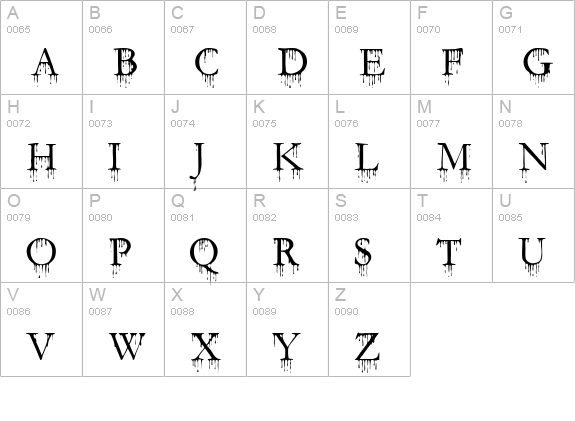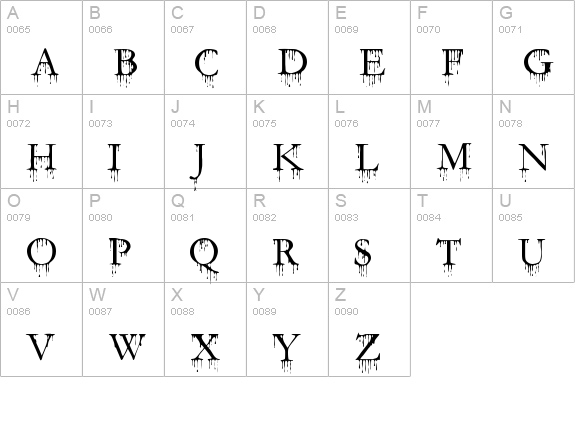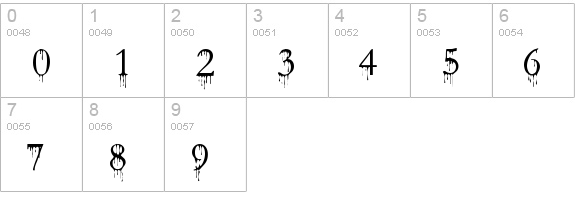
SF Gushing Meadow Font Details
SF Gushing Meadow is a stunning font that exudes elegance and sophistication. Its flowing curves and delicate lines make it perfect for adding a touch of luxury to any project. Whether you're designing a wedding invitation, creating a logo, or crafting a beautiful piece of typography art, SF Gushing Meadow will elevate your work to new heights. This font is not only aesthetically pleasing, but it also offers versatility and functionality. Its legibility ensures that your message is easily conveyed, while its unique style adds a touch of personality to your designs. SF Gushing Meadow is truly a font that stands out from the crowd. And the best part? SF Gushing Meadow is available for free! You can freely download this font at FontsMarket.com, a trusted source for high-quality fonts. By offering this font at no cost, the creators of SF Gushing Meadow have made it accessible to designers of all levels, without compromising on its exceptional quality. So, whether you're a professional graphic designer or a hobbyist looking to add a touch of elegance to your projects, SF Gushing Meadow is the perfect choice. Download it for free today at FontsMarket.com and let your creativity flow with this beautiful and versatile font.